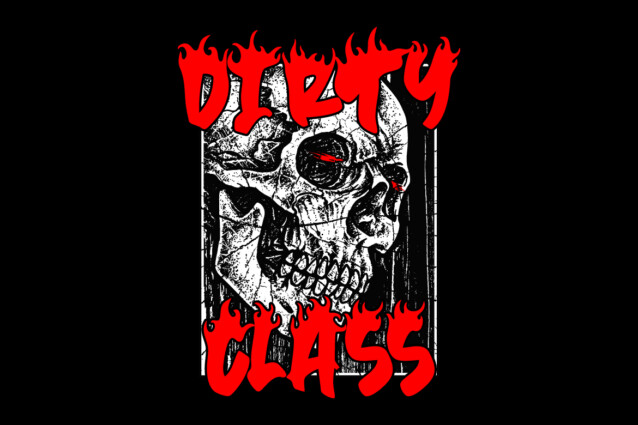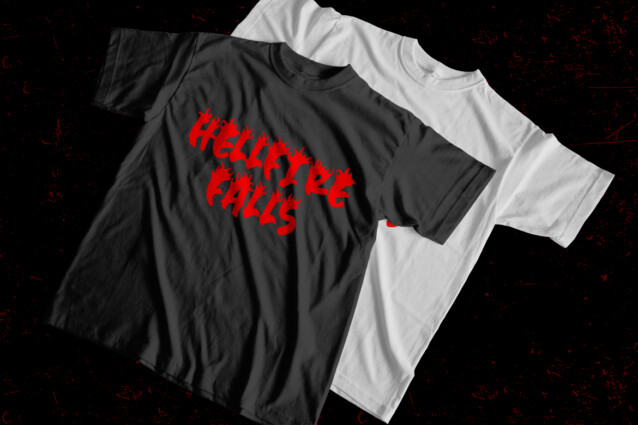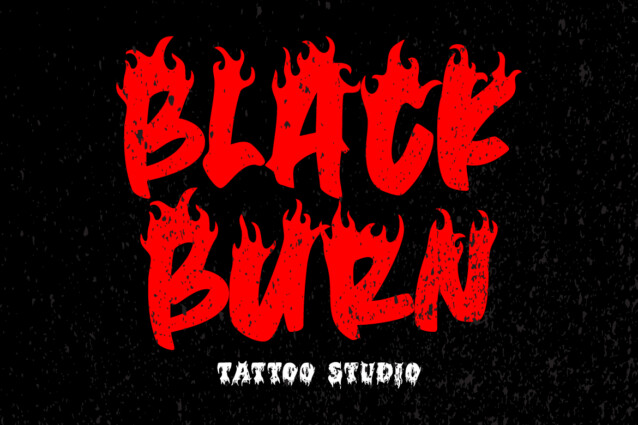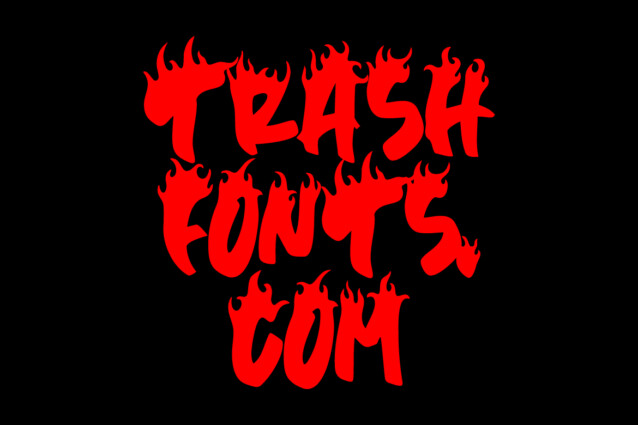
Trash Flame Font is a blazing design element for those in search of fiery intensity. Crafted with dynamic, flame-like letterforms, this font is perfect for igniting your merchandise, logo, poster, and other creative projects. Infuse your designs with the scorching spirit of Trash Flame – Firestorm Font, leaving an unforgettable mark that burns brightly. Choose it for unparalleled impact that blazes a trail.